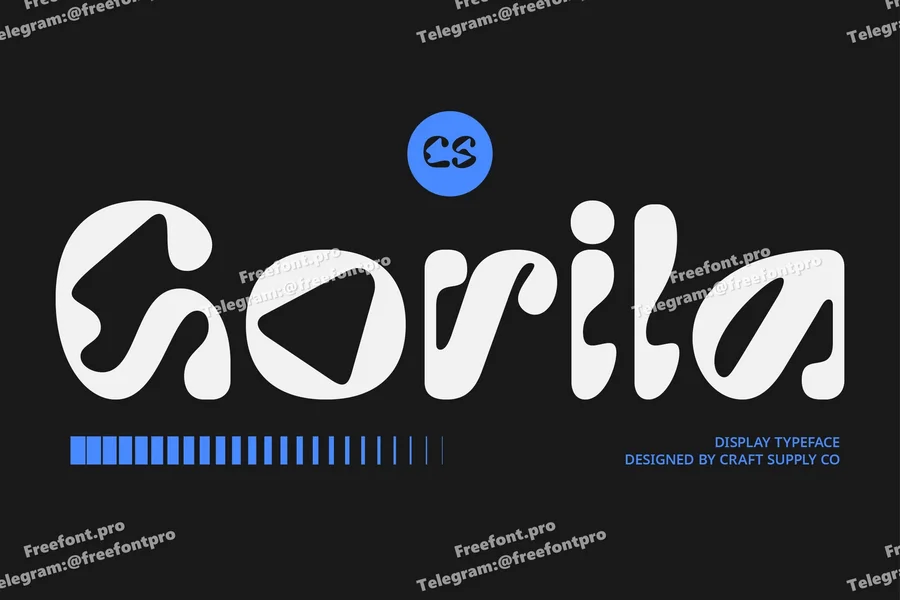
Gorila – Trippy Font
CS Gorila – A Funky and Expressive Trippy Font
Psychedelic Style with a Modern Twist CS Gorila is a modern display font that blends a trippy or psychedelic aesthetic with a clean and contemporary structure. Its bold and fluid letterforms feature quirky, irregular shapes that deliver a sense of visual rhythm and movement, yet remain legible and balanced—perfect for modern designs that want to break the mold.
Funky, Cheerful, and Full of Personality This font radiates energy and imagination, with each character contributing to a playful and funky visual identity. It’s ideal for creators who want to explore artistic, free-spirited, and unconventional expressions in their designs.
Perfect for Artistic and Youthful Designs CS Gorila is a great fit for music posters, experimental graphics, creative branding, album covers, or any project aiming to feel vibrant, fun, and uninhibited. Its style embraces the spirit of retro psychedelia while staying fresh and adaptable for contemporary use.
Make a Statement with Trippy Flair CS Gorila is not just a font—it’s a visual experience. It’s designed to disrupt the ordinary and elevate the playful, ideal for creatives who want to push boundaries and embrace design that’s unconventional and unforgettable. Let it bring a dose of trippy flair and artistic charm to your next project.